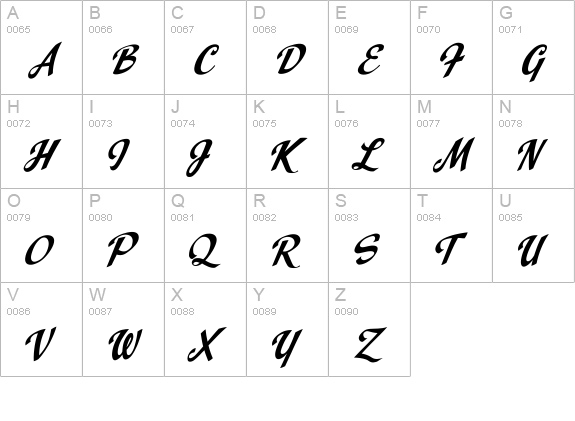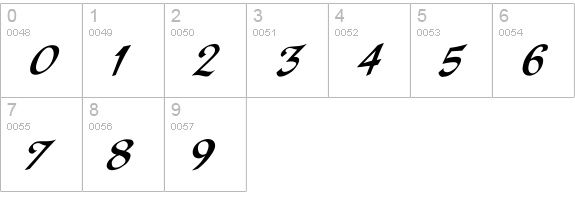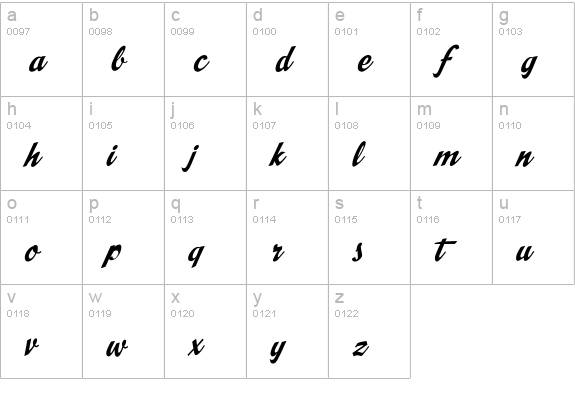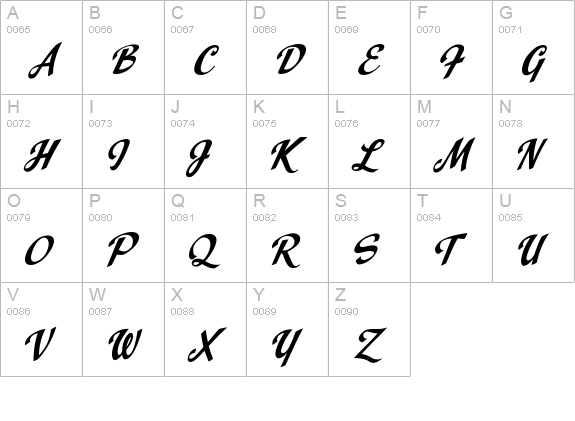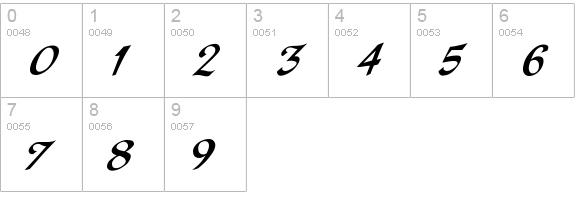
CCSpills Font Details
Introducing CCSpills font, a stunning and versatile typeface that will bring a touch of elegance to your design projects. With its unique and playful style, CCSpills is perfect for adding a modern and dynamic flair to any text or graphic. This beautiful font features a harmonious balance between sleek lines and decorative elements, making it ideal for a wide range of applications. The best part? CCSpills font is available for free download at FontsMarket.com, where you can easily access this amazing typeface to elevate your designs to the next level. Whether you're designing a logo, poster, invitation, or any other creative project, CCSpills font will be sure to impress with its eye-catching appeal and artistic charm. Don't miss out on the opportunity to enhance your designs with this fabulous font - download CCSpills today and let your creativity shine!